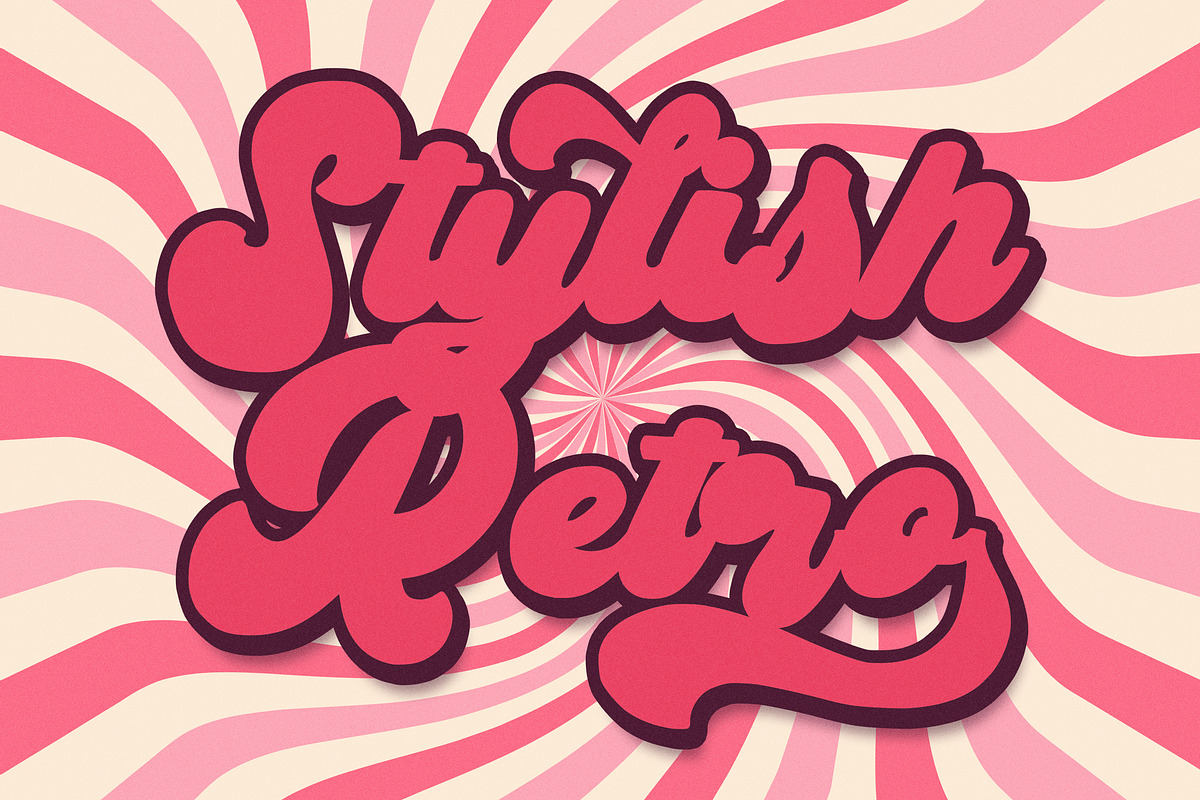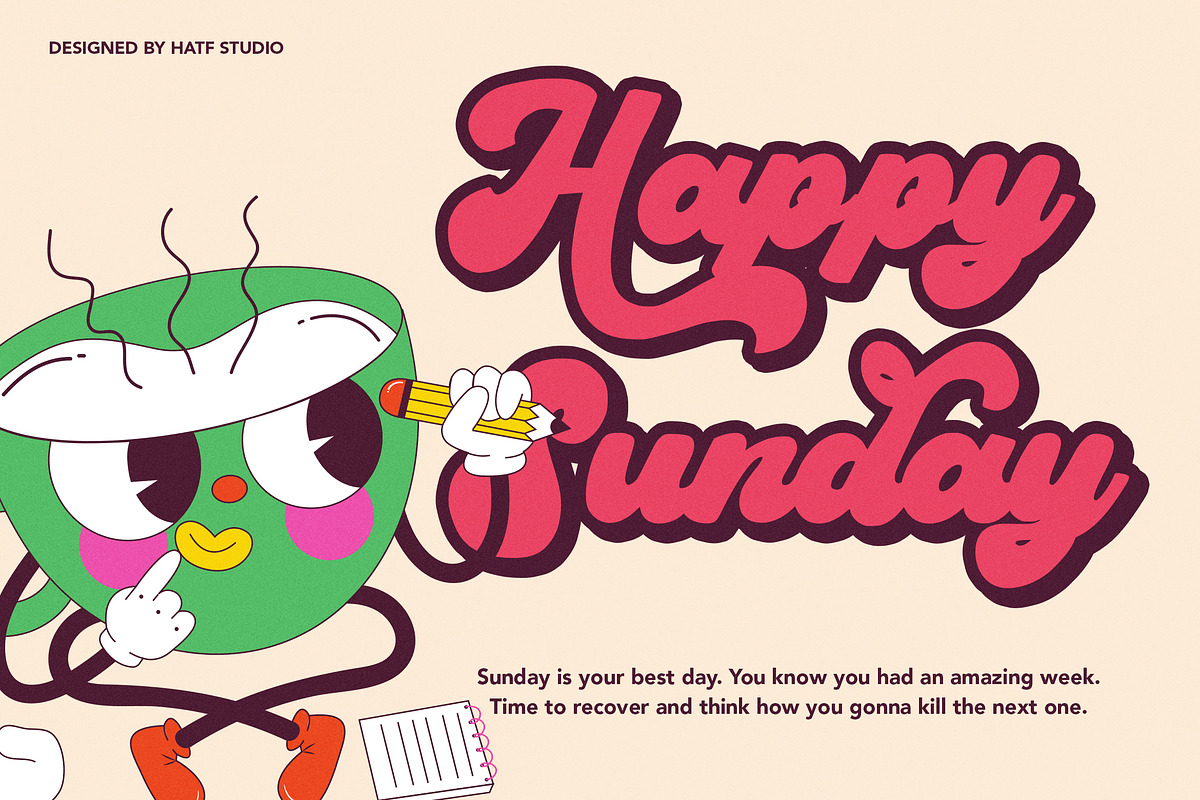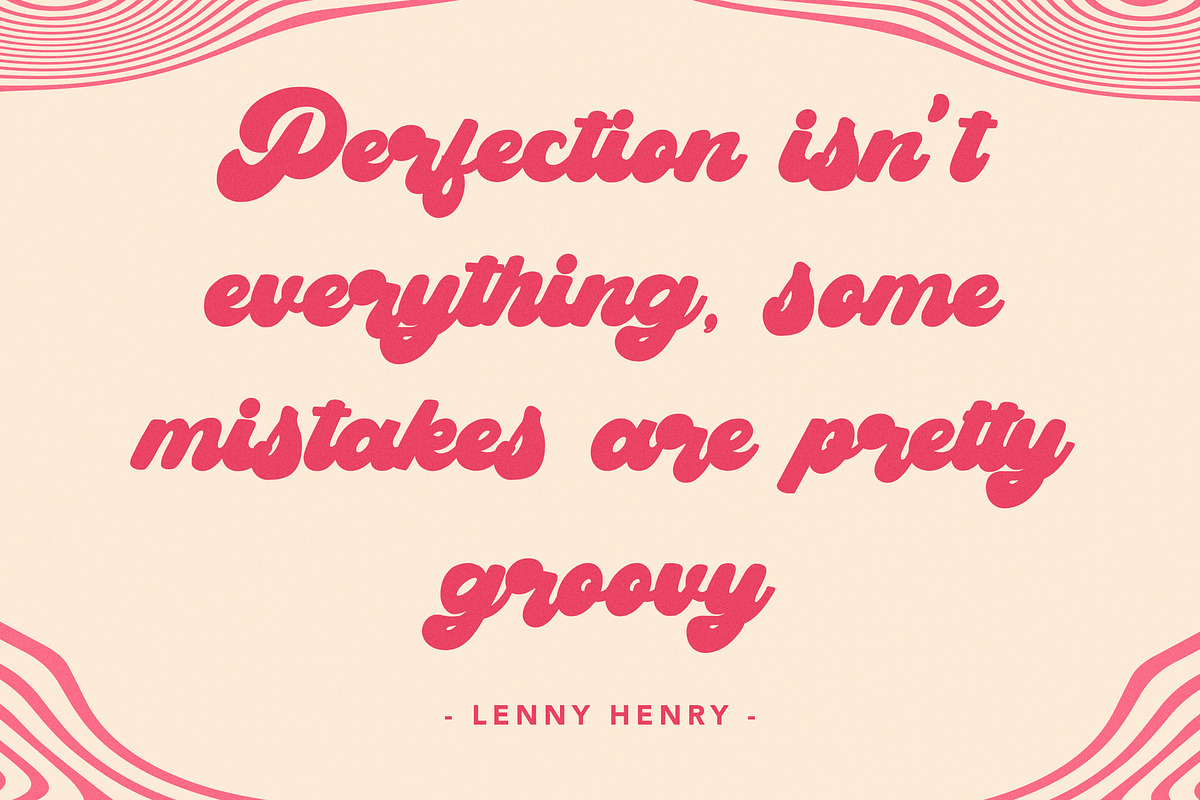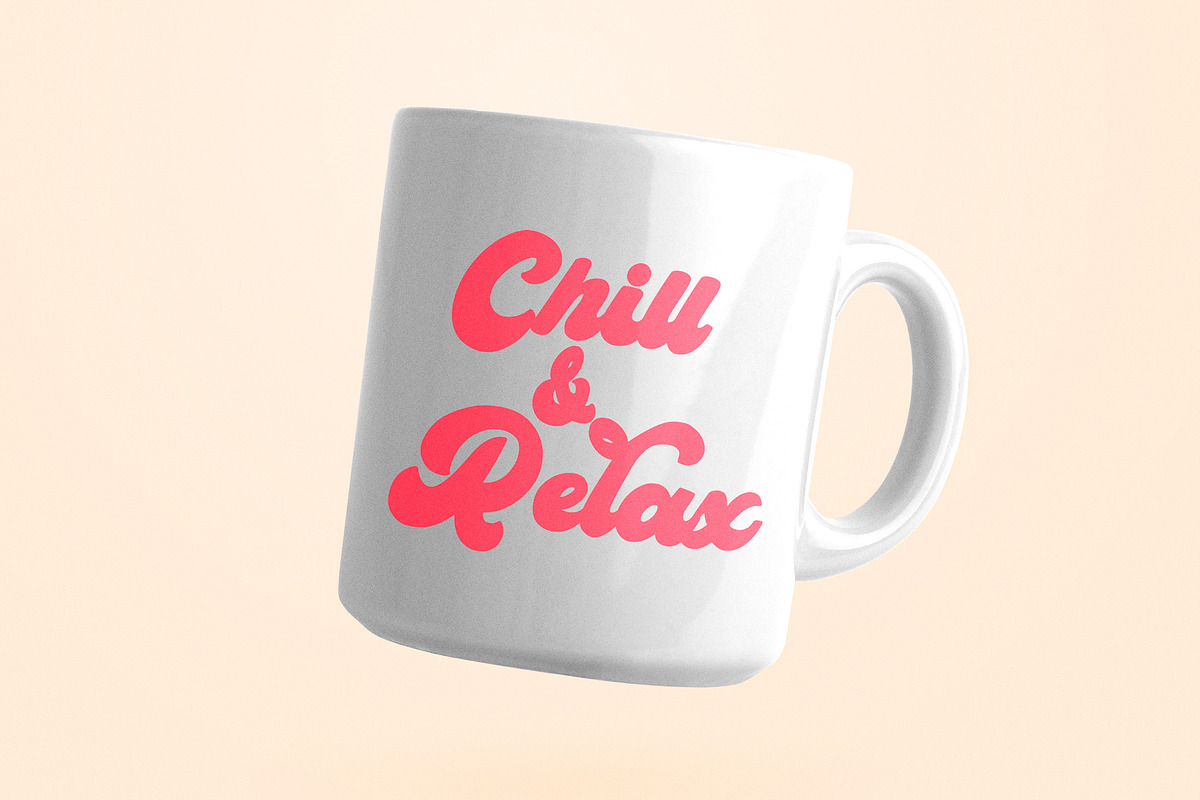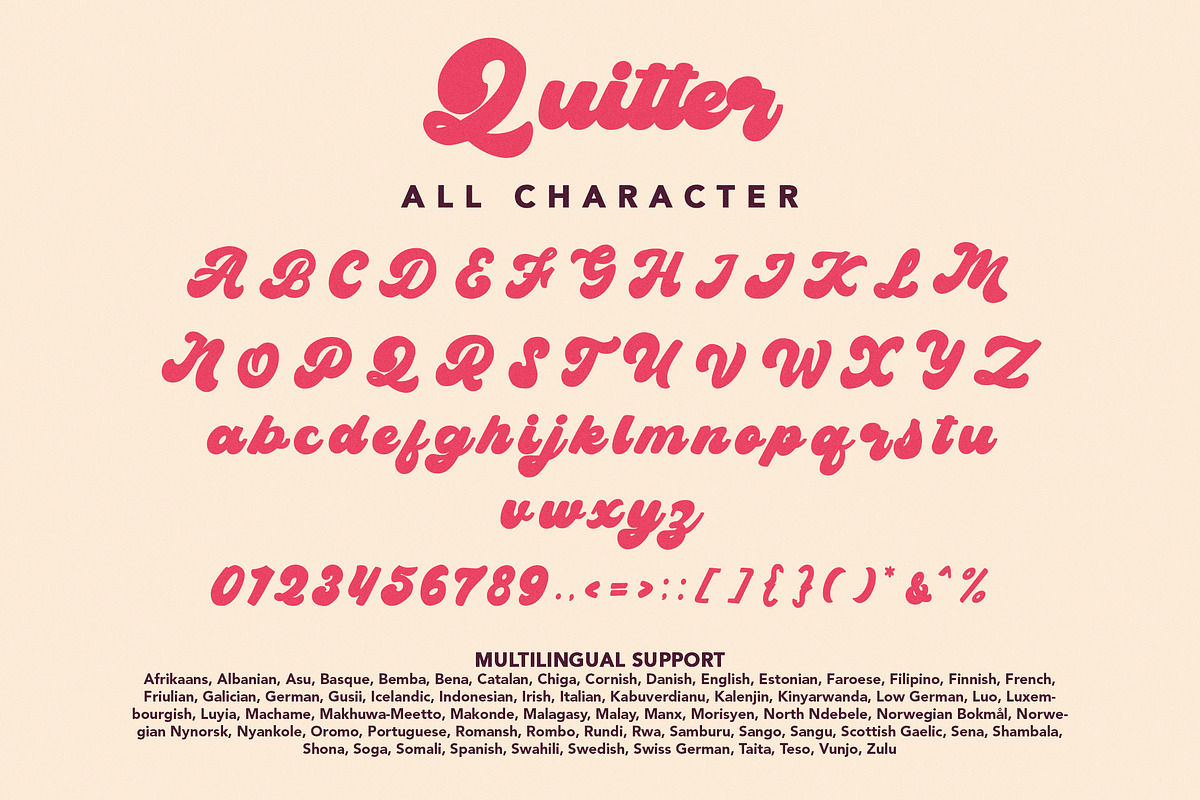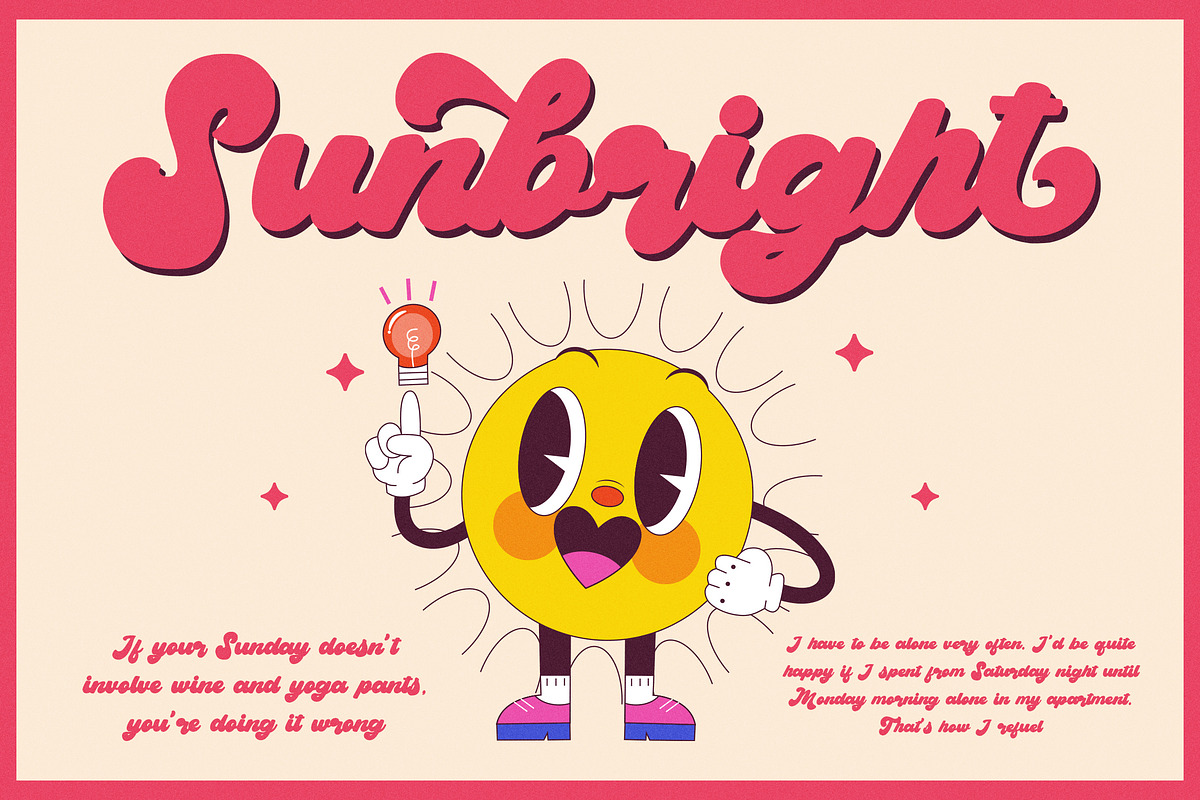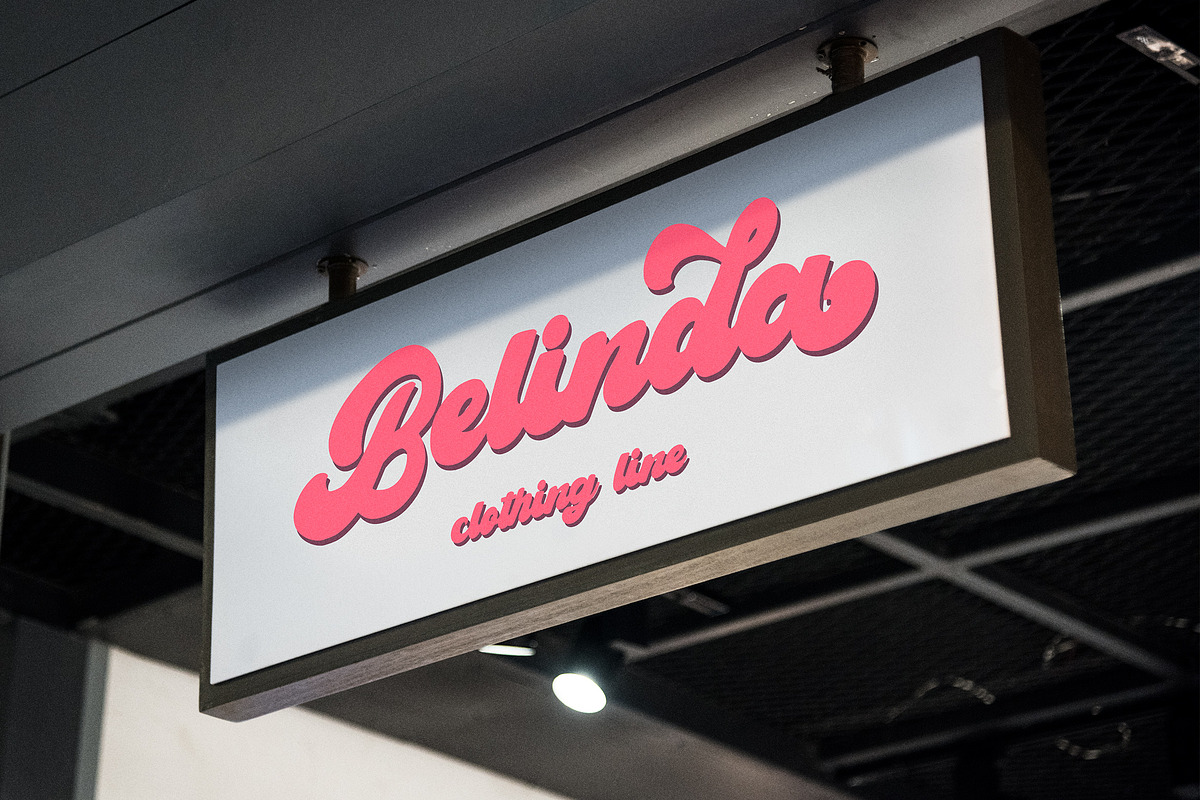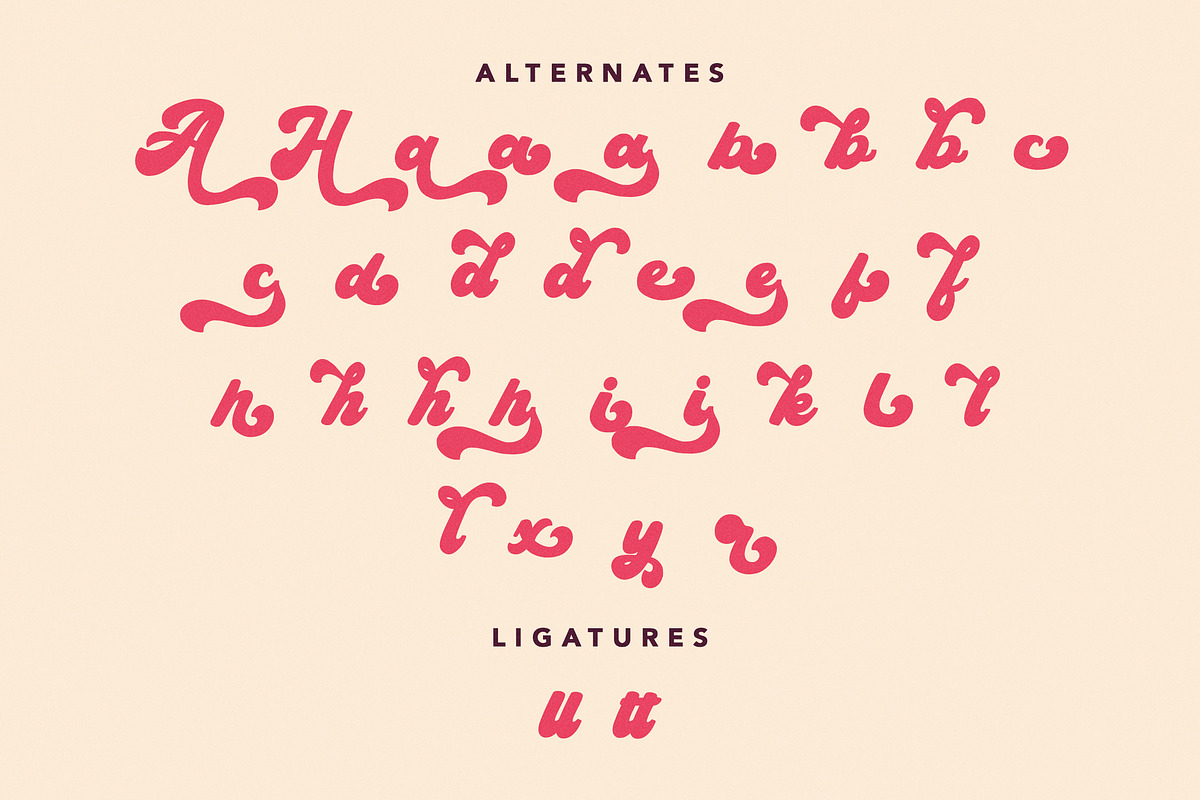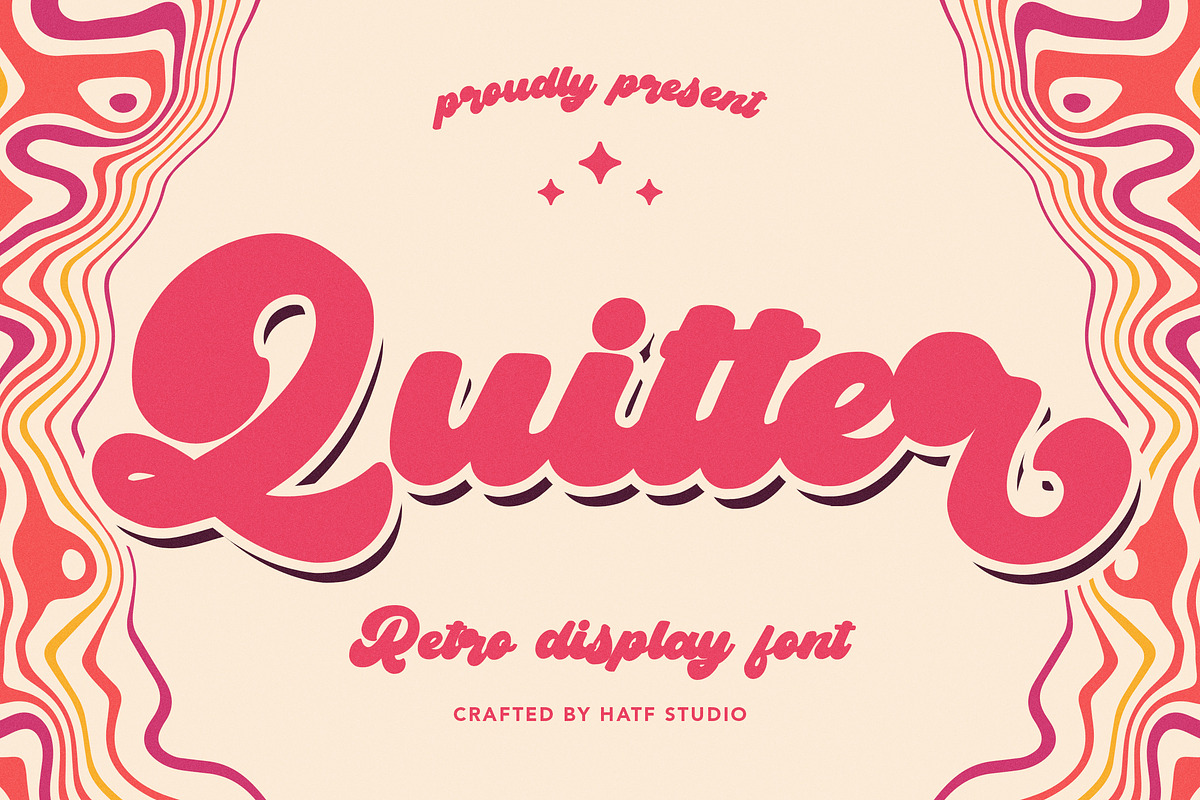
Quitter
Is a font with groovy retro style. With distinctive handwritten characters perfect for branding projects, logos, wedding designs, media posts, advertisements, product packaging, product designs, labels, photography, watermarks, invitations, stationery, and any project who need handwritten dishes.